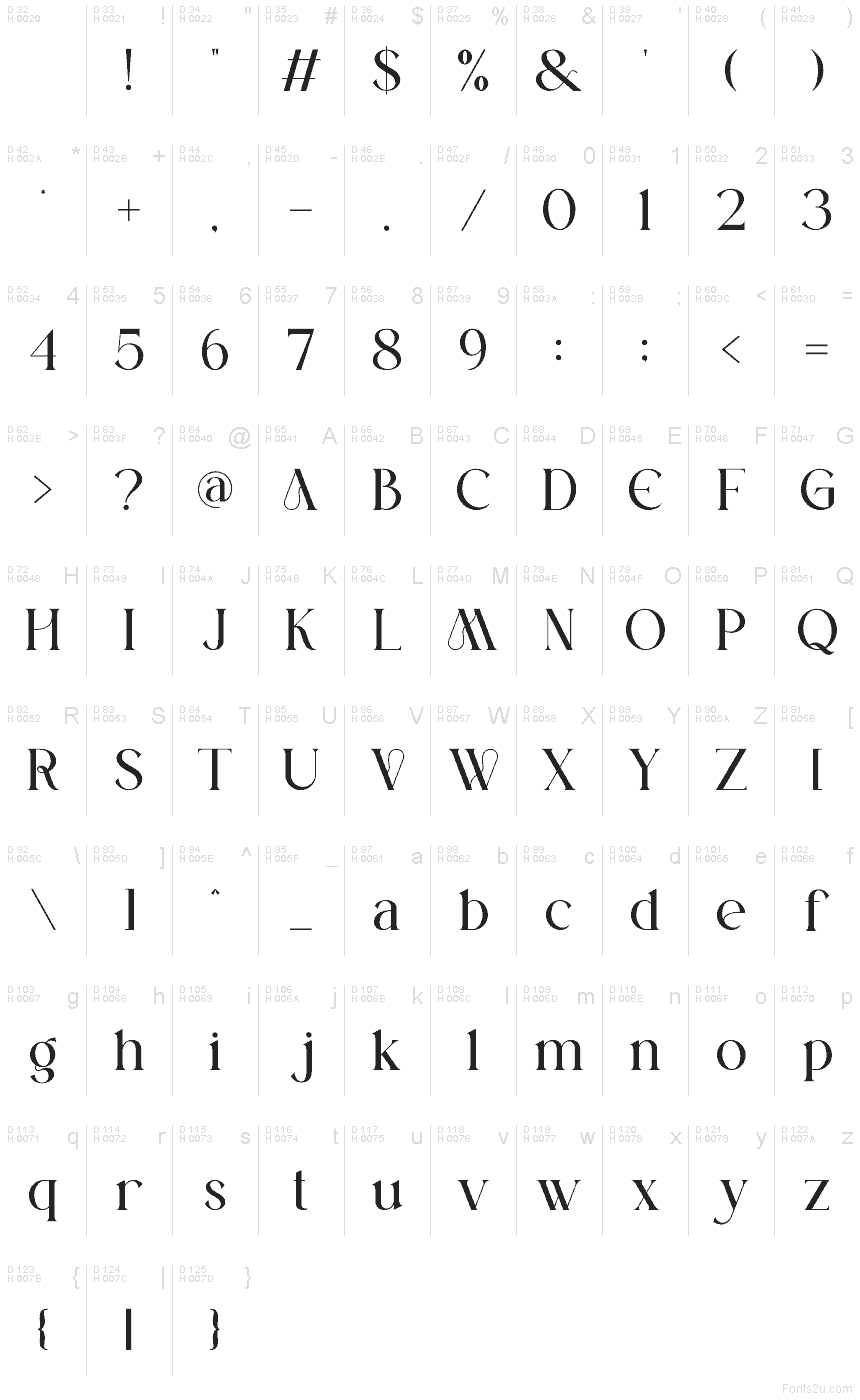
Rineka
Rineka font by ErmediaStudio is a free vintage serif font. Its defining move is the dramatic thick–thin contrast: smooth, inky curves meet knife-edge serifs that feel carved rather than drawn. Letters sit tall and poised, giving headlines a poised, editorial snap while keeping just enough warmth in the counters to feel human and tactile.
Using Rineka, you get headlines that command space without shouting—great for boutique branding, wine labels, editorial covers, packaging, posters, and event invitations. The rhythm is tight and sculpted, so it shines large; pair this free font with a clean grotesque sans for body copy and let Rineka handle the spotlight work.